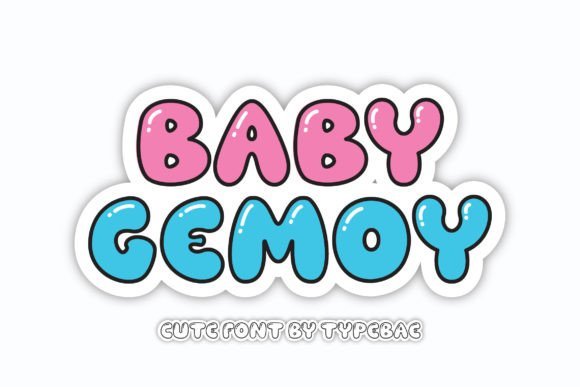
Get Ready to Unleash Your Creativity with the Cutest Font Around
Have you ever been brainstorming for hours, trying to come up with the perfect idea for your next design project, but nothing seems to stick? You’re not alone. We’ve all been there. But then, something magical happens – you stumble upon the perfect font that brings your entire concept to life. For many designers, that moment of inspiration came when they discovered the Baby Gemoy Font.
This delightful bubble font is more than just a pretty face; it’s a versatile tool that can elevate your projects with its playful charm. With six styles to choose from, you can create visually appealing and cool typography that’s sure to capture your audience’s attention. Whether you’re a seasoned designer or just starting out, the Baby Gemoy Font is an invaluable addition to your toolkit.
Baby Gemoy Font Key Features
- Font Style: A modern, sans-serif font with a unique, playful twist.
- Unique Characteristics: The font features distinctive, rounded edges and a subtle flair at the ends of the stems, giving it a friendly and approachable feel.
Baby Gemoy Font Review
I recently had the chance to work with the Baby Gemoy font, and I must say it’s a unique and charming addition to any design project. ✨ One of the things that stood out to me was the playful, whimsical feel it brings to the table. It’s perfect for projects that require a touch of personality and warmth.
The font’s rounded edges and gentle curves make it a great choice for titles, headings, and other emphasis areas. ✨ I also appreciate the wide range of weights and styles available, which gives designers plenty of options for customizing their projects.
- ⚠️ The font may not be the best choice for projects that require a professional or formal tone.
- ⚠️ Some of the characters may not be as legible at smaller font sizes, which could be a concern for projects with dense text.
Overall, I’m impressed with the Baby Gemoy font, and I think it’s a great addition to any designer’s toolkit. While it may have some limitations, its unique personality and versatility make it a great choice for the right projects. ✨
Getting the Most Out of the Baby Gemoy Font
To get the most out of the Baby Gemoy font, consider the following tips:
Use the font for titles, headings, and emphasis to create a visually appealing design.
Pair the font with other sans-serif fonts for a clean and modern look.
Experiment with different font sizes and styles to create a unique and eye-catching design.
The Baby Gemoy font is commonly used for:
Designing children’s products and packaging.
Creating invitations and event materials.
Developing branding and marketing materials for businesses.